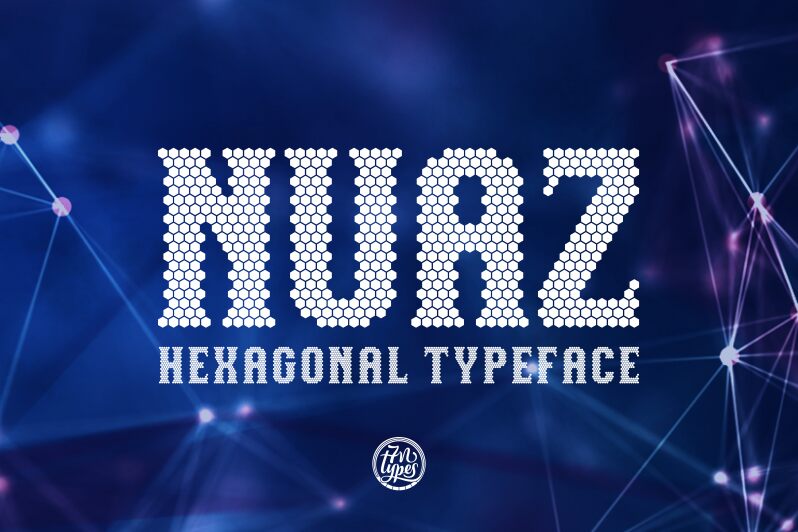
NUAZ
"Nuaz is a captivating display font that commands attention with its bold, condensed design. Crafted by Situjuh Nazara, this decorative typeface exudes a distinct sense of energy and dynamism.
The unique hexagonal forms create a visually striking pattern, lending an eye-catching and modern aesthetic to any design. Nuaz's versatility shines through, making it a versatile choice for a wide range of applications, from editorial layouts and branding to packaging and event collateral.
Its condensed width allows for impactful typographic compositions, ensuring your message stands out with a touch of refined sophistication."